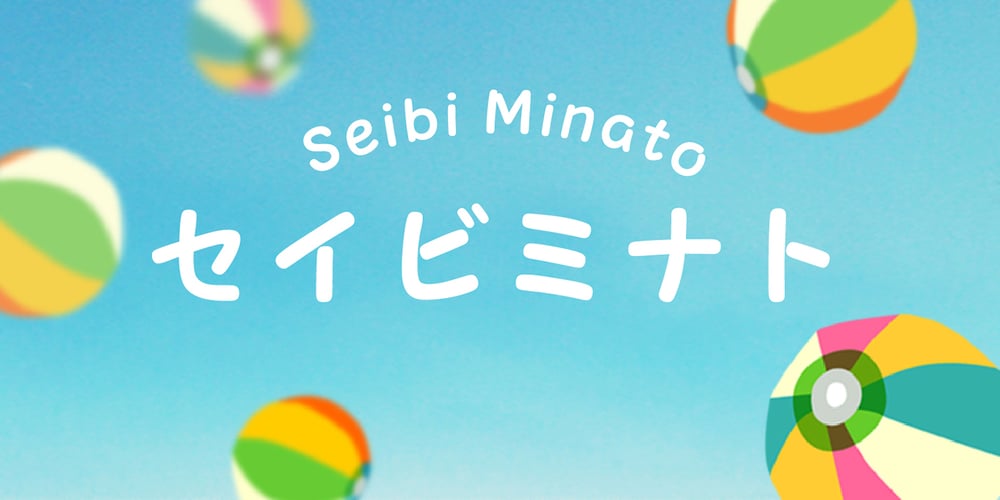
Seibi Minato Font Family was designed by published by Nihon Literal. Seibi Minato contains 1 styles and family package options. Designed for the covers of children’s literature and picture books, this is a freehand-style, rounded gothic typeface that conveys warmth and softness. It has also been sold as a font for use in game software. 児童書や絵本の表紙向けにデザインされた、あたたかさややわらかさを表現したい場面で使われるフリーハンド(手書き風)書体です。ゲームソフトなどに組み込まれるフォントとしての販売実績もあります。右肩上がりのリズミカルなフリーハンドタッチで、ヨコ組タテ組どちらでも読みやすく組むことができます。